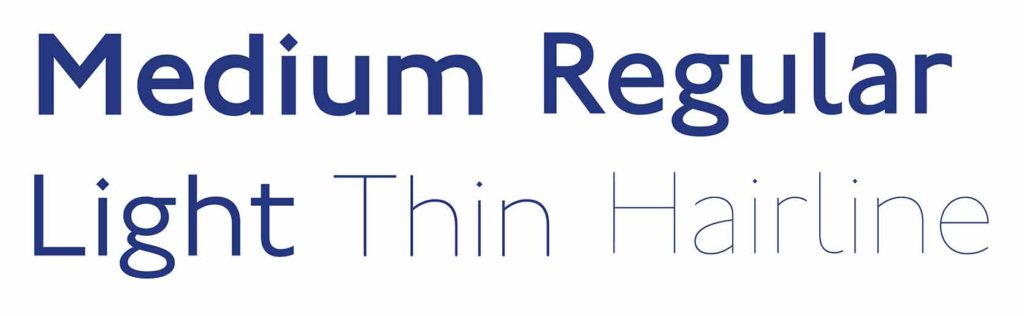
Name: Johnston100
Designer: Malou Verlomme
Foundry: Monotype
Release Date: June 2016
Back story: Johnston, the iconic typeface drawn by Edward Johnston in 1916, retains a unique place in design history as inseparable from London Transport’s comprehensive and world-famous design language. Johnston has been used beautifully and consistently over the past century, everywhere from station wayfinding to bus destination signs to publications. Over time, design tweaks to accommodate new technology gave the typeface a slightly more utilitarian look and feel, losing some of its initial charm and personality.
Under the direction of Monotype type director Nadine Chahine, designer Malou Verlomme set out to restore some of the quirkiness of the original alphabet, like the distinctive lowercase g and uppercase S. With unrestricted access to London Transport’s extensive archives, Verlomme was able to review every iteration of the typeface’s evolution.
“The gravity of this 100-year-old typeface just pulls you in,” says Chahine.
“We drew inspiration from the joy reflected in archival Transit posters from 90 years ago: the wonder of taking the tube, of leaving your small village just by climbing down a flight of stairs and then re-emerging somewhere entirely different in London. Magical. We made tiny corrections; the shapes did not change significantly or get dramatically re-organized. Johnston’s typeface captured this joy, and we decided to make certain characters wider and more open to match his drawings, and to give the letterforms room that would reflect this new expansiveness of life.”
Why’s it called Johnston100? We’re stating the obvious here, but the 100 was added to distinguish this centennial reissue from Johnston’s original typeface.
What are its distinguishing characteristics? “We broke some rules,” Chahine says. “Current typeface design makes a lot of optical corrections to ensure a consistent visual weight, but this was not so in the original Johnston from 100 years ago. Usually, there tends to be far more variation in the thickness of the joins when they blend into the verticals. Johnston was more geometric at first, not so optically corrected, and we sought to restore some of that original soul.” Besides adding characters necessary for the digital age (hello # and @), two new weights were added, a Hairline and a Thin. Verlomme kept the skeleton and essence of the original letterforms intact in his reinterpretations to create something both contemporary and fashionable.
What should I use it for? That’s a tough one, as this typeface basically says one thing and says it very, very well. For display, it’s almost impossible to separate it from its London Transport context, which would seep into other uses in distracting and unwelcome ways. However, the lighter weights are very pretty as running text, where a clever designer might be able to get away with it.
Who’s it friends with? It contrasts well with Franklin Condensed, and for a recently introduced companion, have a look at FS Brabo.
Bonus round: For an excellent read on the history of Edward Johnston, his typeface, and the overall design systems of London Transport (with tons of great images), check out Mark Ovenden’s London Underground by Design.